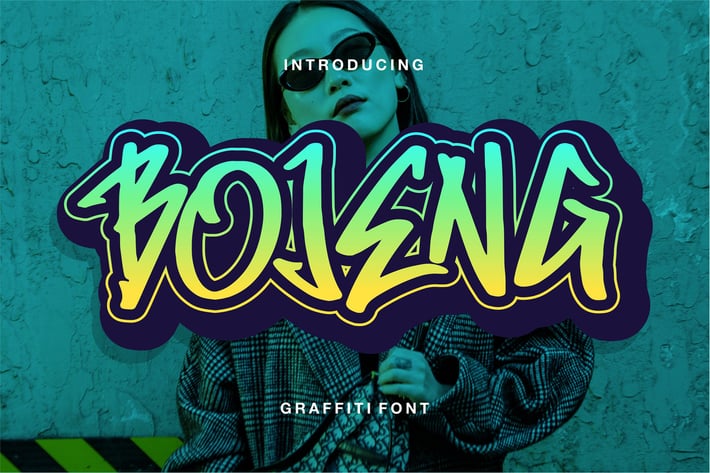
Bojeng | Grafiti Font
Bojeng | Grafiti Font with a calligraphy style, So beautiful on invitation like greeting cards, branding materials, business cards, quotes, posters, and more!